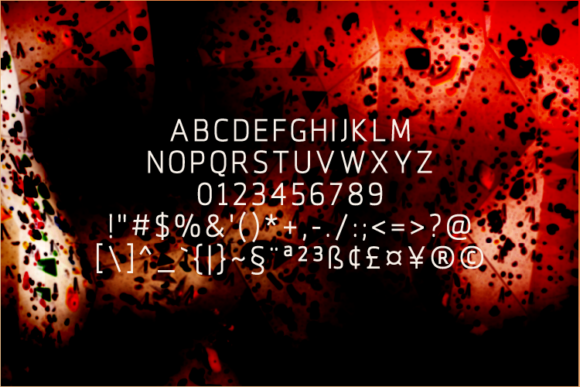
Craftery Font: Elevate Your Design with Modern Simplicity
In the world of design, typography plays a crucial role in conveying a message, expressing creativity, and capturing the audience’s attention. For designers and crafters seeking a font that embodies modern simplicity, Craftery Font is an excellent choice. Inspired by the elegance of classic geometric shapes, Craftery is a contemporary sans serif font that brings a minimalist feel to any design project.
The Inspiration Behind Craftery Font
Craftery Font draws inspiration from the simplicity and elegance of geometric shapes, which have been a cornerstone of design for centuries. The font’s creator aimed to distill the essence of these shapes into a modern sans serif font, perfect for designers who appreciate clean lines, simplicity, and versatility. The result is a font that exudes a sense of sophistication and elegance, making it ideal for a wide range of design applications.
Key Features of Craftery Font
Craftery Font boasts several key features that make it an attractive choice for designers and crafters:
- Modern Sans Serif Design: Craftery’s sleek, sans serif design ensures that your text remains legible and stylish, even at small font sizes.
- Geometric Inspiration: The font’s geometric inspiration adds a touch of sophistication and elegance to your designs.
- Minimalist Feel: Craftery’s clean lines and simple shapes create a minimalist aesthetic that’s perfect for designs that require a subtle, yet impactful typography.
- Versatility: Craftery Font is suitable for a wide range of design applications, including branding, packaging, posters, and digital media.
Use Cases for Craftery Font
Craftery Font is an incredibly versatile font that can be used in various design projects, including:
- Branding and Logo Design: Craftery’s modern, geometric design makes it an excellent choice for logos and brand identities that require a sleek, sophisticated look.
- Packaging Design: The font’s clean lines and minimalist aesthetic make it perfect for packaging designs that require a simple, yet effective typography.
- Poster Design: Craftery Font is ideal for poster designs that require a bold, eye-catching typography that can capture the audience’s attention.
- Digital Media: The font’s legibility and simplicity make it suitable for digital media, including website headers, social media graphics, and email marketing campaigns.
Tips for Using Craftery Font Effectively
To get the most out of Craftery Font, consider the following tips:
- Pair with Other Fonts: Craftery Font pairs well with other sans serif fonts, as well as serif fonts with a geometric inspiration.
- Experiment with Font Sizes: Craftery Font remains legible at small font sizes, making it perfect for body text and captions.
- Use Bold Weights for Emphasis: The font’s bold weights are perfect for headings and titles that require a bold, eye-catching typography.
Craftery Font is a modern sans serif font that embodies the simplicity and elegance of classic geometric shapes. Its minimalist aesthetic, versatility, and legibility make it an excellent choice for designers and crafters seeking a font that can elevate their design projects. Whether you’re working on branding, packaging, posters, or digital media, Craftery Font is an excellent choice that can help you achieve your design goals.